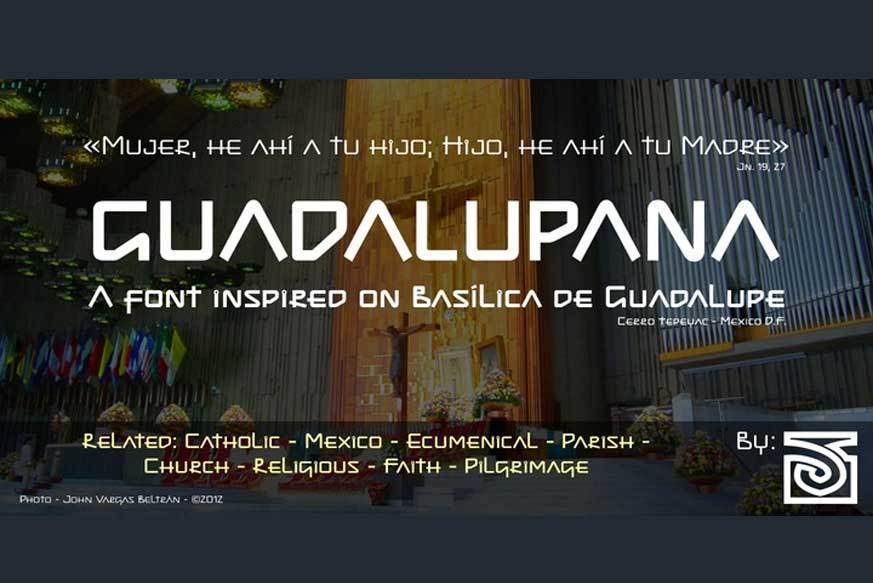
Guadalupana Font Family
On October 12th 1976 a new basilica was inaugurated in honor and in gratitude to the Patron Saint, the Virgin of Guadalupe, loved by the Mexican people.